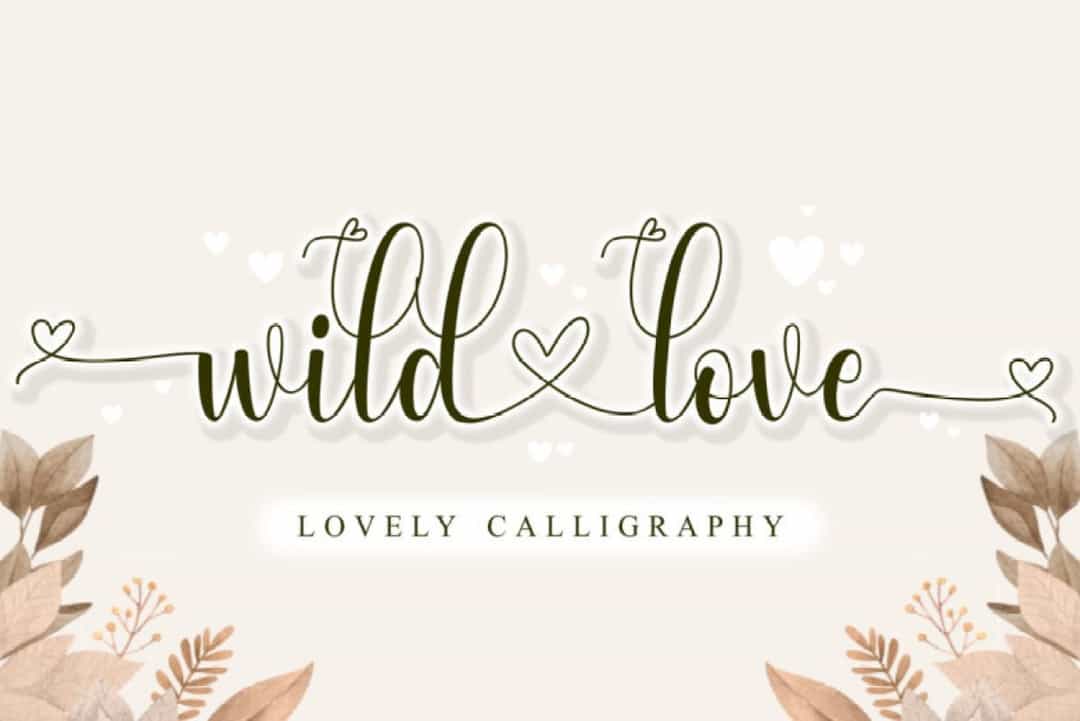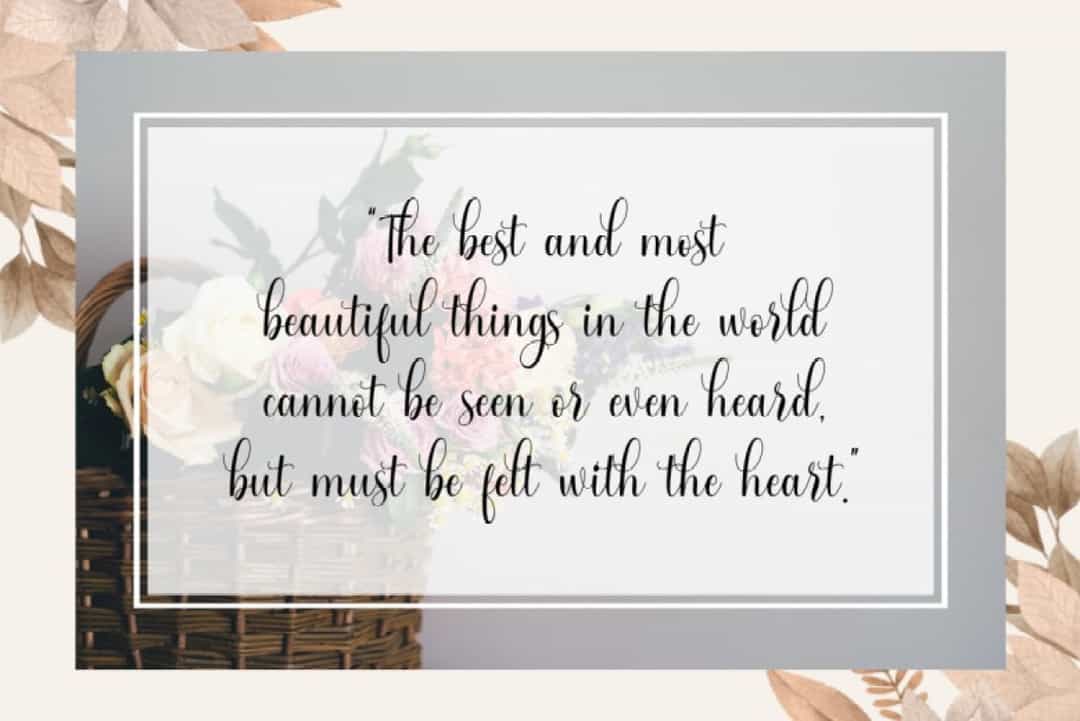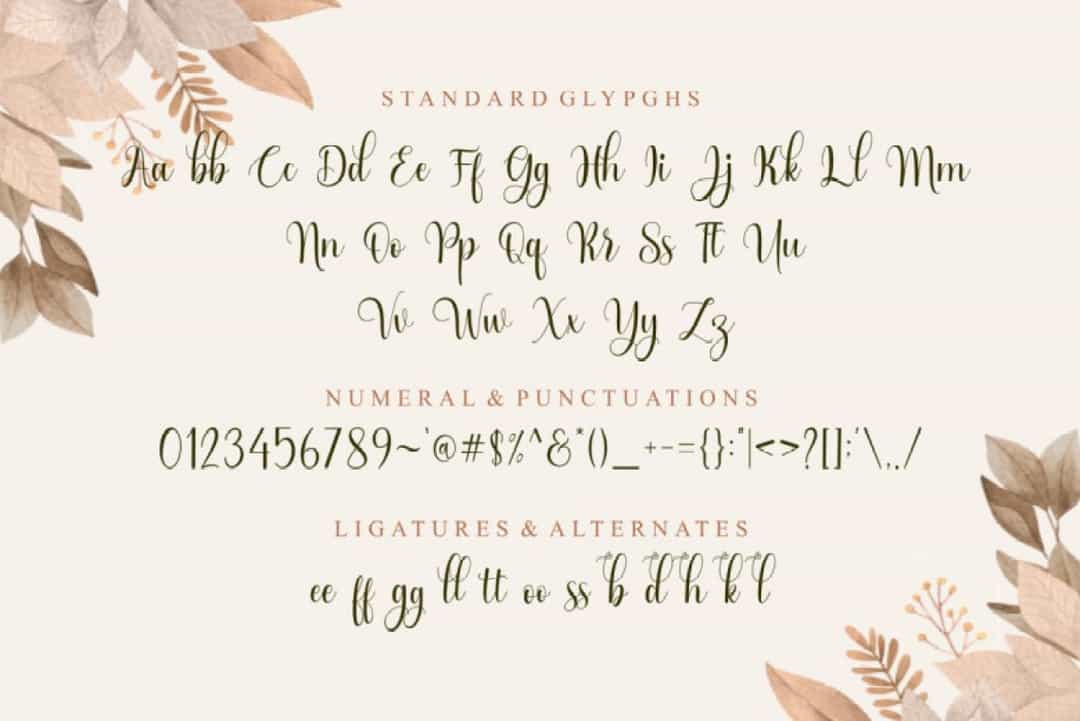
Discover Wild Love Font, part of the Calligraphy collection—a versatile and unique font perfect for adding a personal touch to your projects. Download it for free and enjoy crafting designs with style, from invitations to social media posts. This font is available exclusively for personal use, giving you the freedom to create without limits. Unlock your creativity with Wild Love Font today!
Wild Love is an incredible script font, which has a little heart at the beginning and at the end of the swashes. Besides, this font can also represent love towards a person or an object; and that is why this font looks beautiful and attractive.